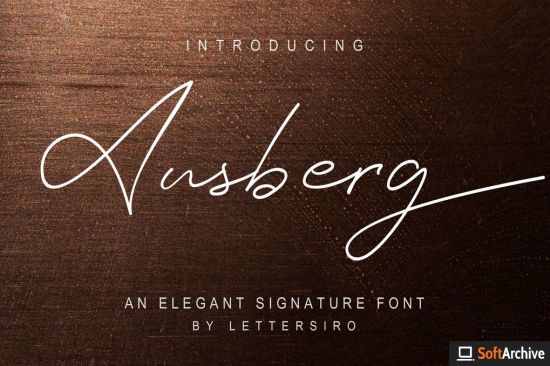
Ausberg Font is elegant signature font. Perfect for any purpose like trademark, logo name, photography, quotes and other. Make your signature more elegant and great